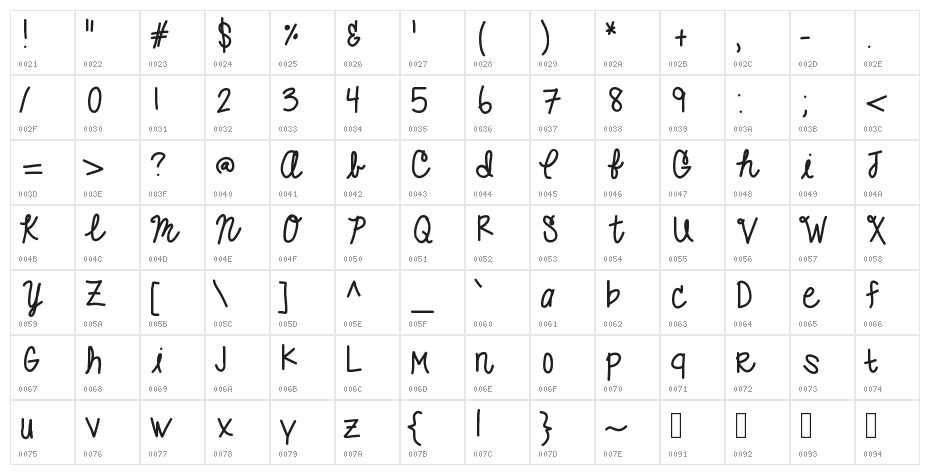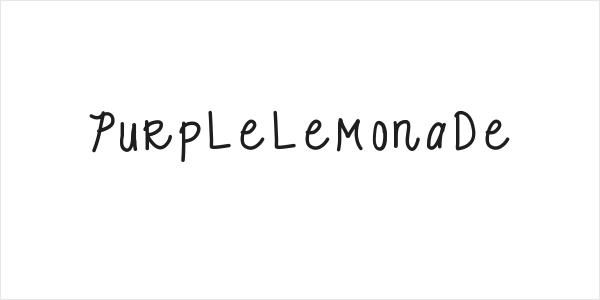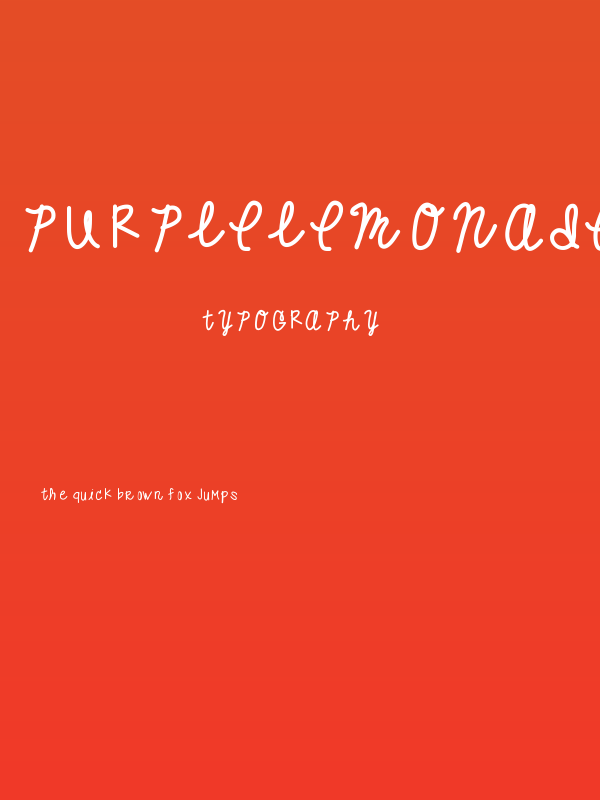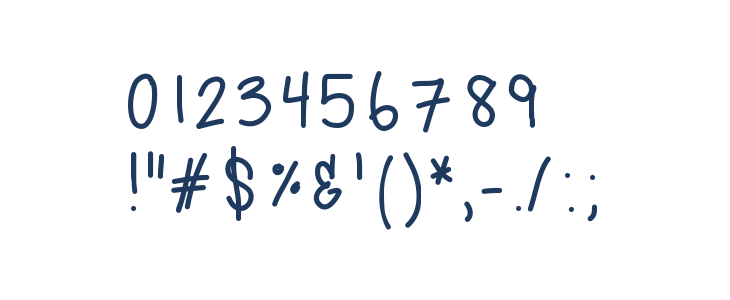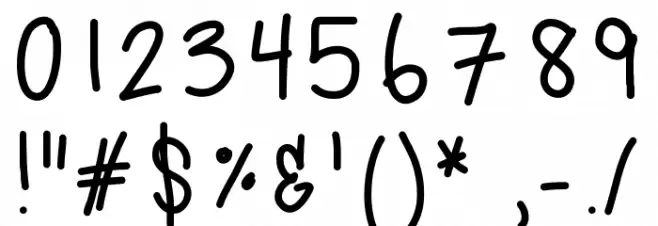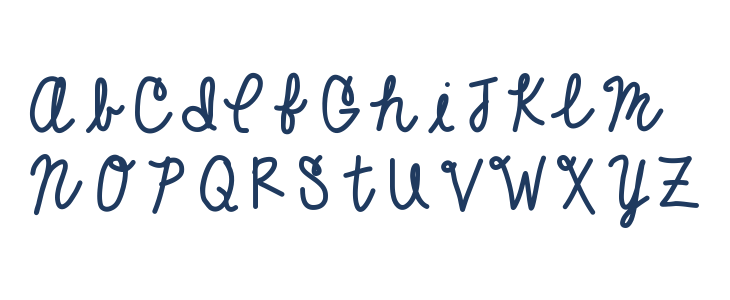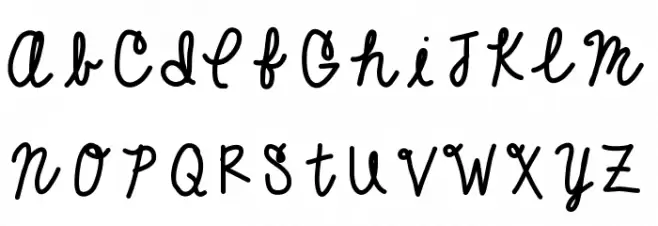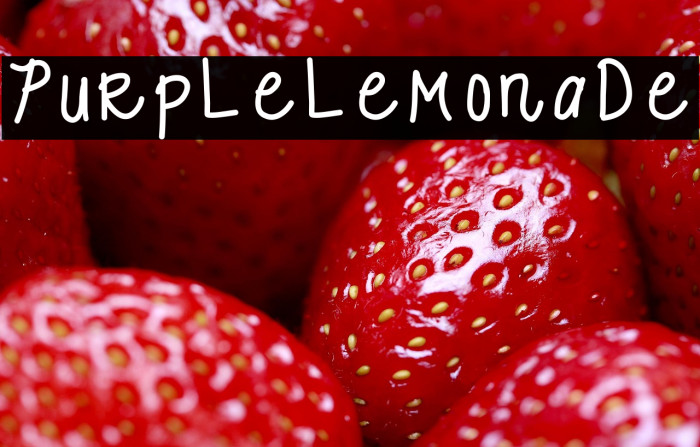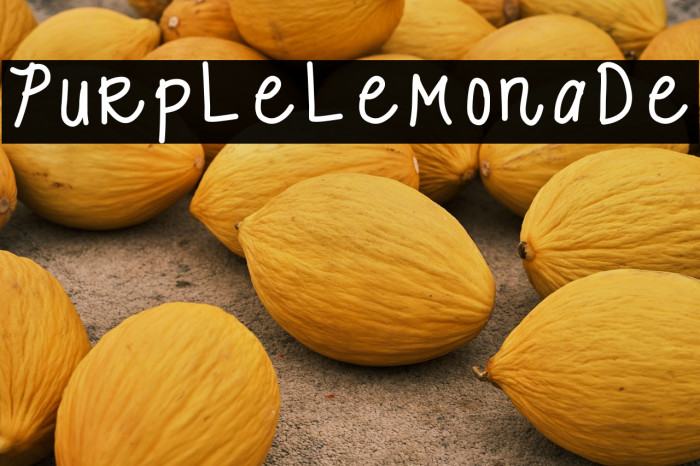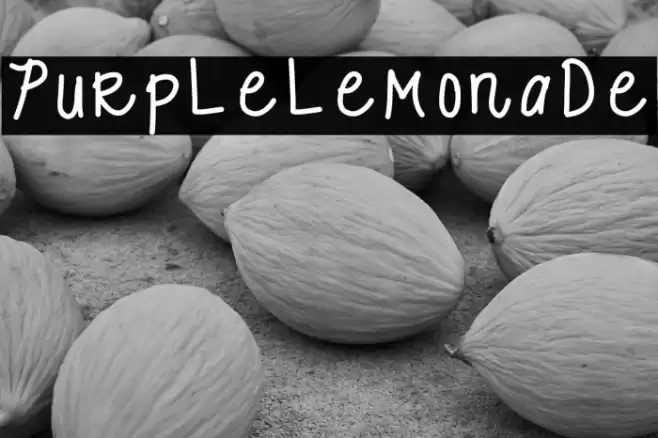
Purplelemonade Font
Purplelemonade Description
A casual, handwritten script font with a playful and informal style, featuring smooth curves and a slightly irregular baseline.
| Overall Style | Casual, Playful, Informal |
| Use Case | Headlines, Body text, Logos, Invitations |